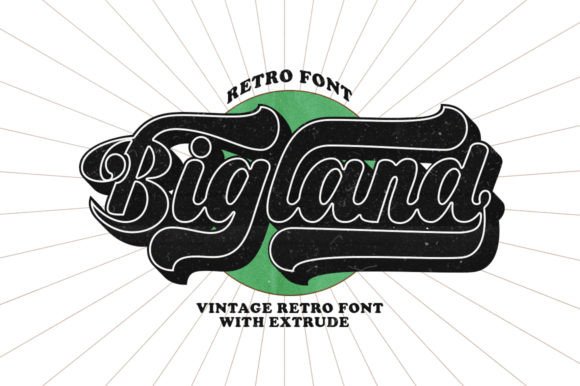
Introducing Bigland Retro Font, the perfect choice for adding a touch of urban retro style to your projects! Created by the talented LetterFreshStudio, this display font boasts a logotype lettering style that will captivate and inspire.
Are you searching for the ideal font for your upcoming wedding invites? Look no further! Bigland Retro Font is the ultimate font for wedding invites, offering a unique blend of elegance and vintage charm. With its exquisite design and attention to detail, this font is sure to leave a lasting impression on your guests.
One of the standout features of Bigland Retro Font is its PUA encoding. What does this mean for you? It means that you have easy access to all the glyphs and swashes, allowing you to unleash your creativity without any limitations. Whether you're designing wedding invitations, logos, posters, or any other project, this font offers a vast range of possibilities.
Imagine your wedding invite adorned with the graceful curves and refined strokes of Bigland Retro Font. It effortlessly communicates a sense of sophistication and nostalgia, setting the perfect tone for your special day. Your guests will be captivated by the timeless beauty this font brings to your invites.
But it doesn't end there. Bigland Retro Font is not just for weddings. Its versatility extends to a wide range of design projects. Want to create stunning vintage-inspired posters that grab attention? This font has got you covered. Looking to add a touch of elegance to your branding? Look no further.
Let your imagination run wild with Bigland Retro Font. Its unique style and carefully crafted details make it a must-have for any designer or creative individual. Stand out from the crowd and elevate your designs with this captivating font.